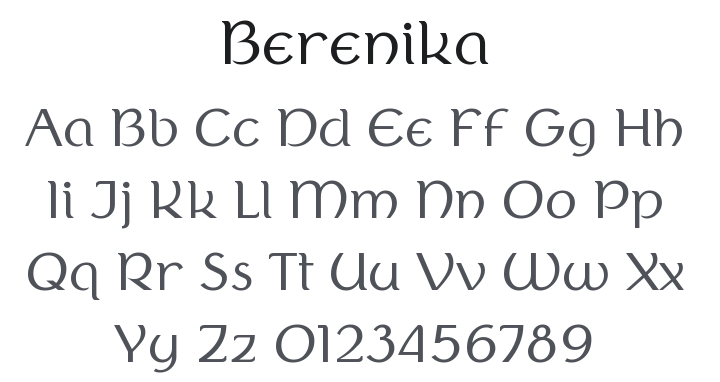
Berenika Font Family
by Wojciech Kalinowski
Berenika Font Family
About Berenika
This is my newest idea about font. This family is based on Celtic inscriptions and Celtic-looking fonts, my old and new ideas and things I once saw (but I don't know when...) Klaudia is the first part of two fonts family. The second part is Berenika.